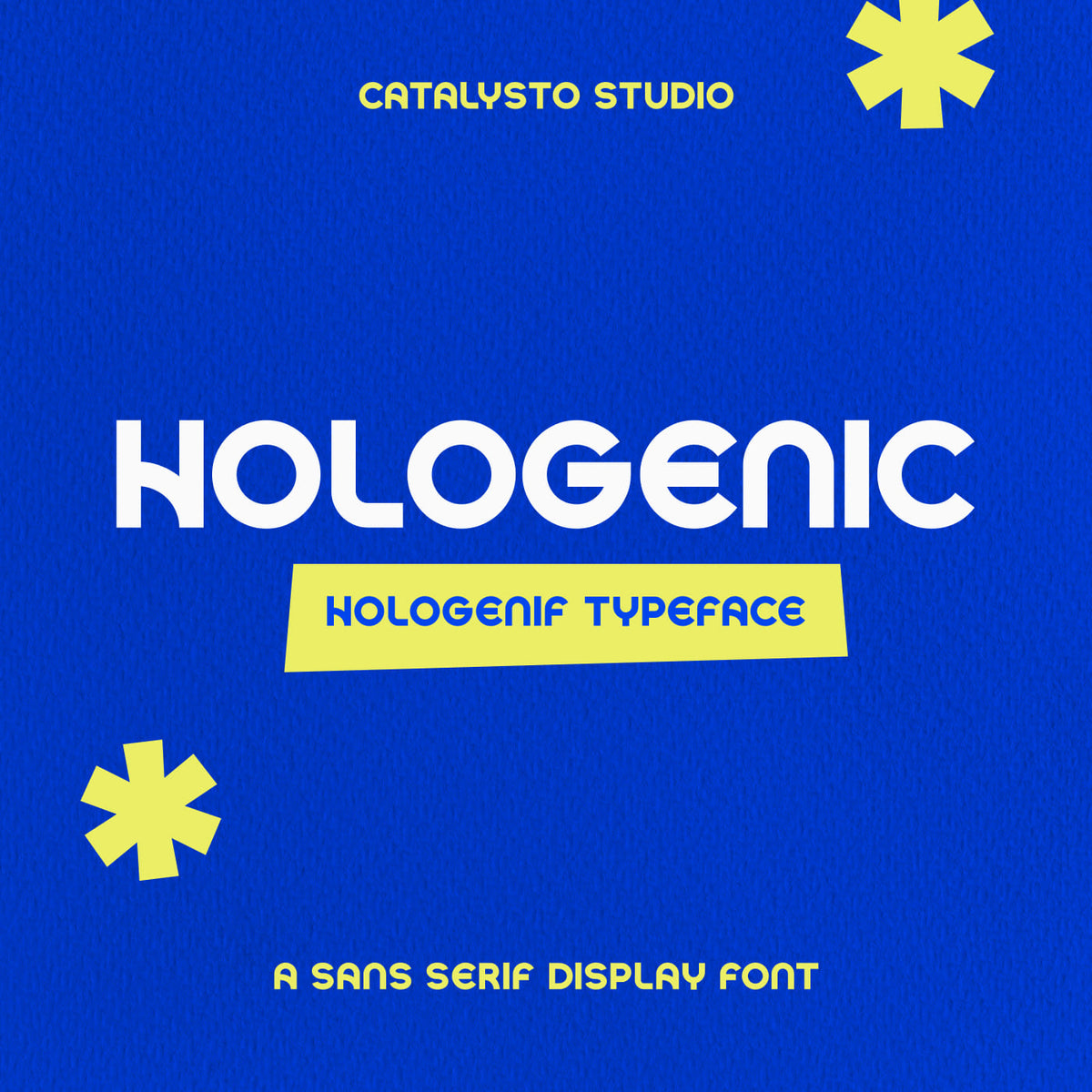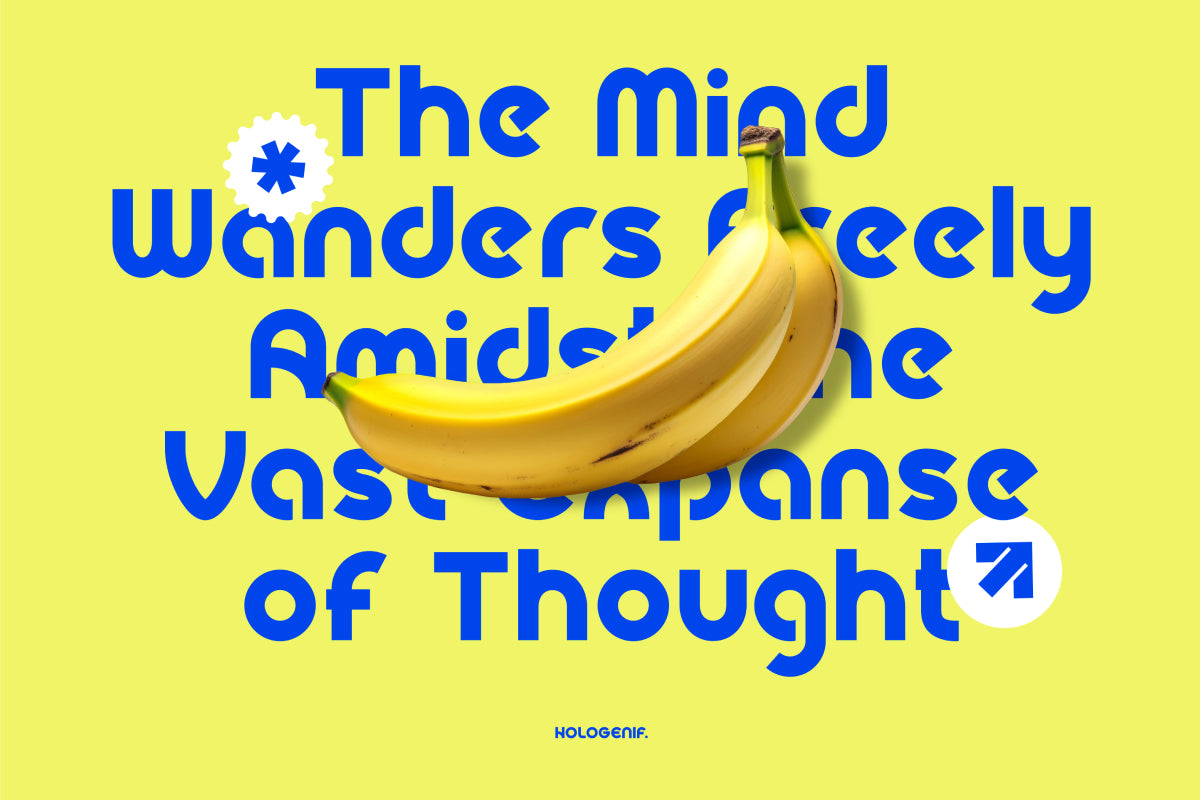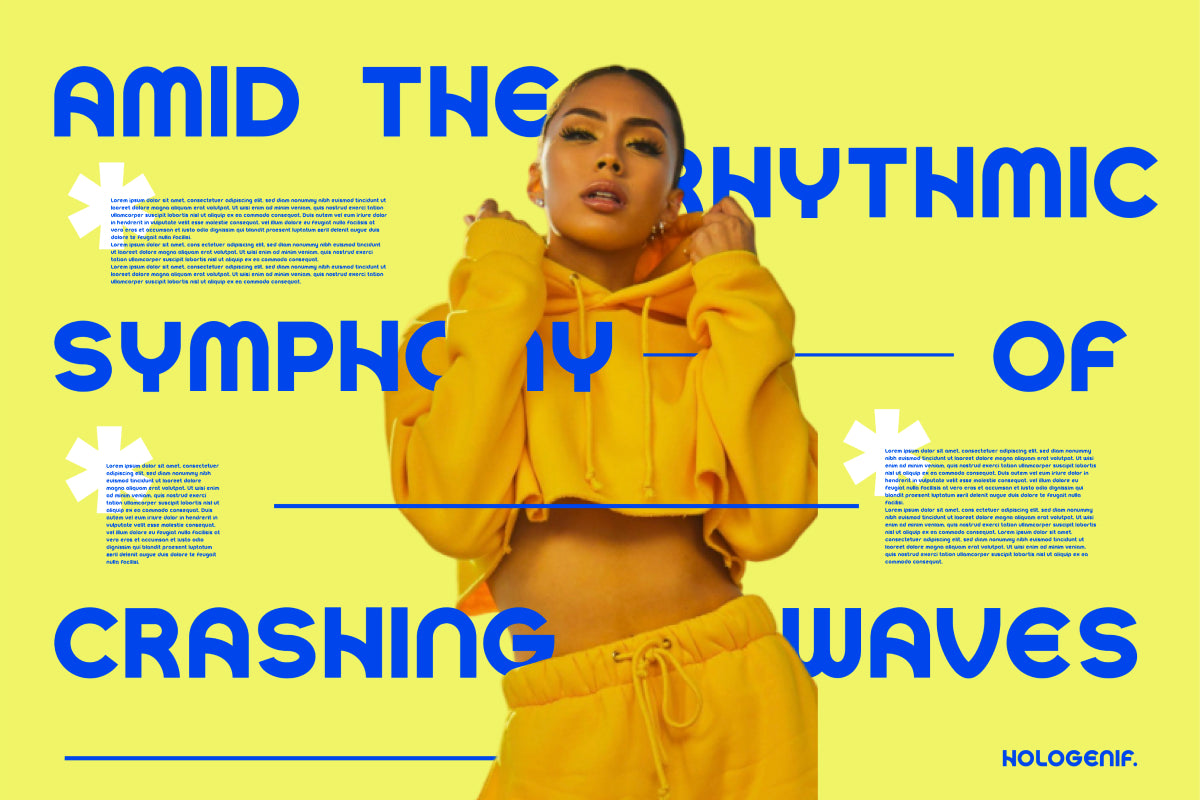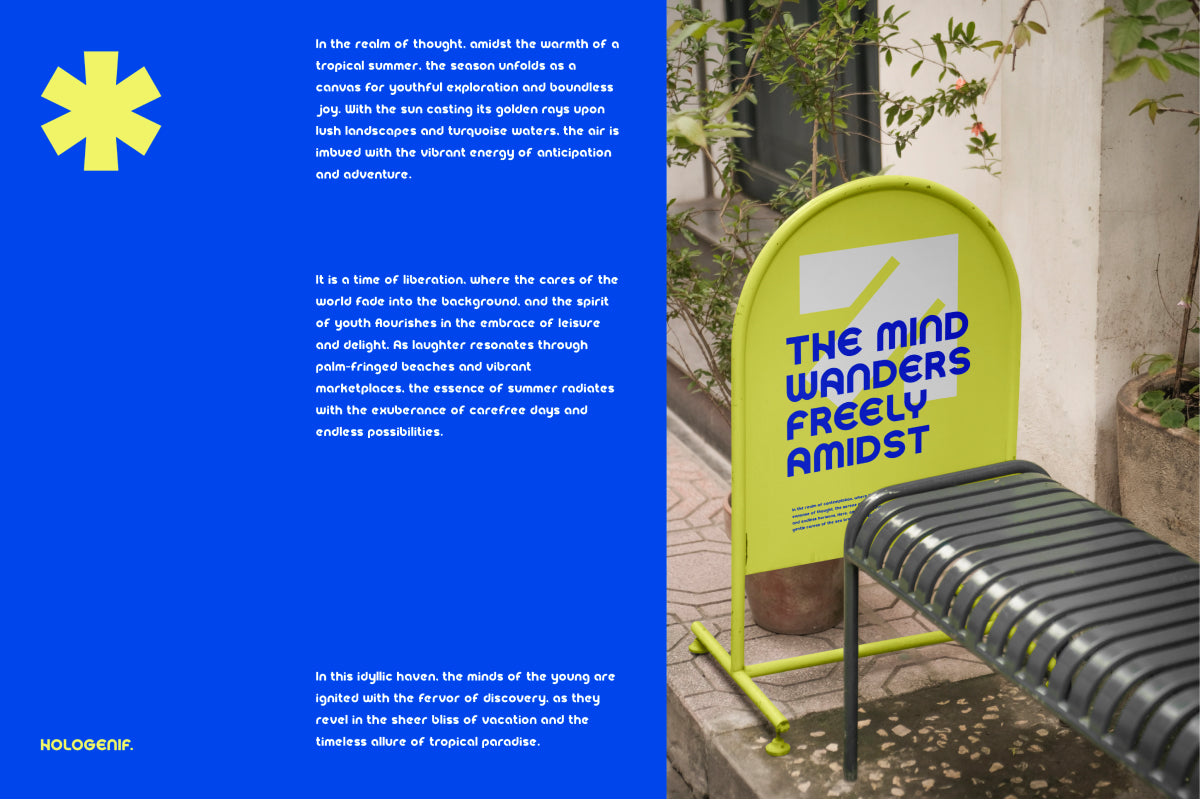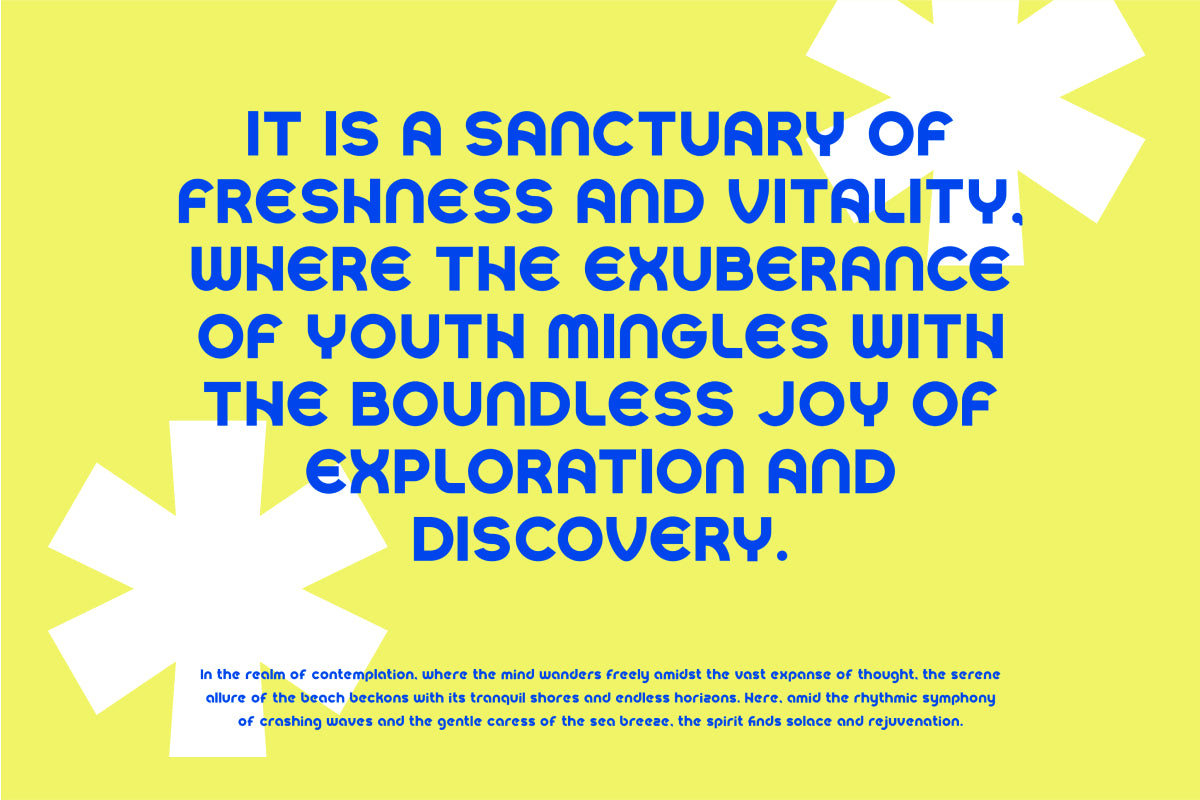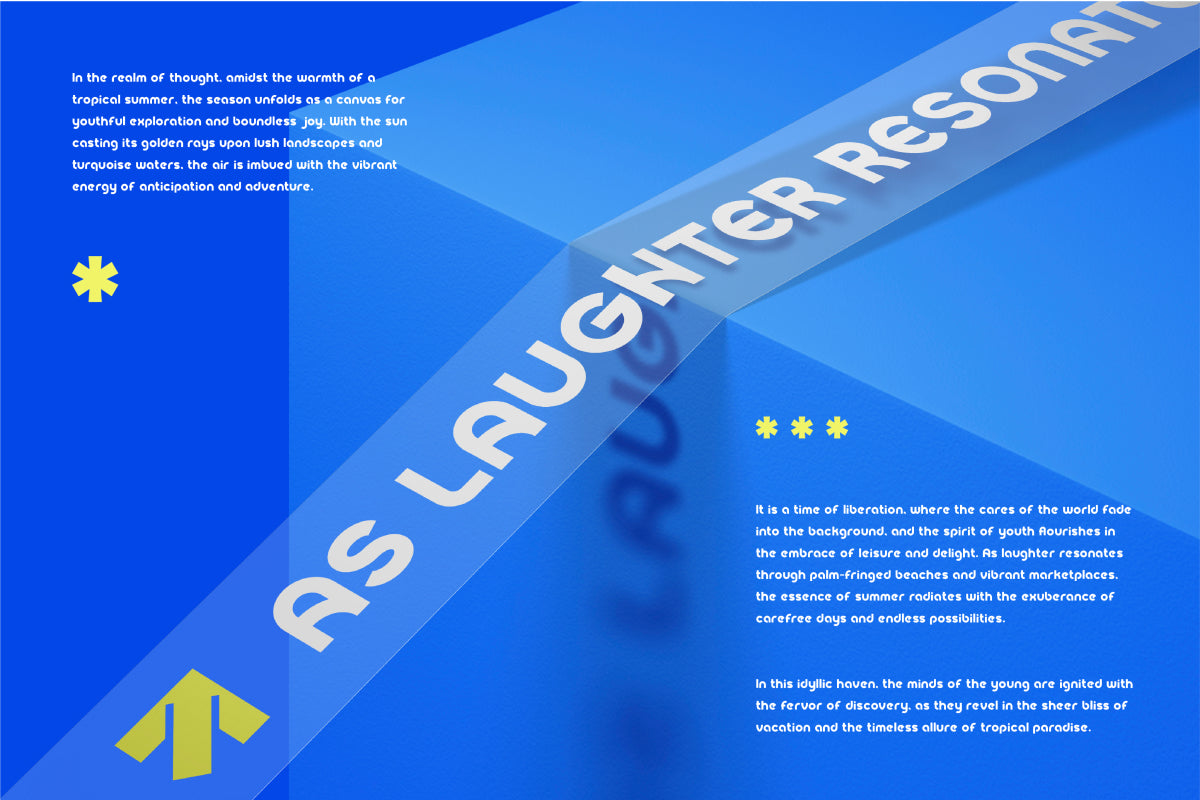
Hologenic Sans Serif Display Font
Hologenic is a bold geometric sans serif display font featuring rounded structures, wide proportions, and distinctive futuristic letterforms. Its characters combine smooth circular shapes with carefully constructed geometric cuts, creating a clean yet unconventional appearance. The rounded terminals, open counters, and unique details within letters such as G, E, N, and C give the typeface a recognizable visual identity while maintaining a strong and readable silhouette.
Relevance and Use Case is perfect for projects that need a distinctive geometric type style with a clean, rounded, and contemporary appearance. Its unusual letter construction makes it suitable for technology branding, creative studios, digital products, posters, editorial covers, packaging, advertising campaigns, event graphics, social media artwork, logos, headlines, and visual identities. The strong geometric structure is especially useful when typography needs to function as a prominent graphic element rather than simply supporting body content.
Hologenic is a bold geometric sans serif display font featuring rounded structures, wide proportions, and distinctive letterforms with unique details in characters such as G, E, N, and C. It includes uppercase and lowercase letters, ligatures, alternates, numerals, and punctuation, available in TTF, OTF, and WOFF formats.